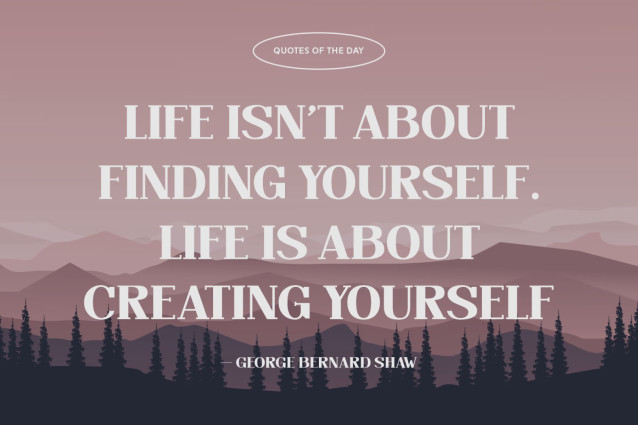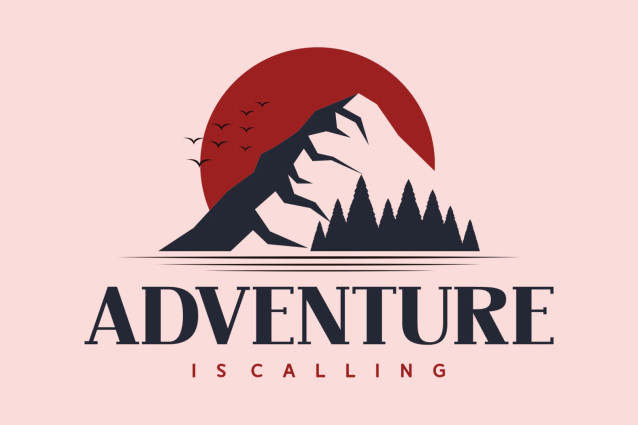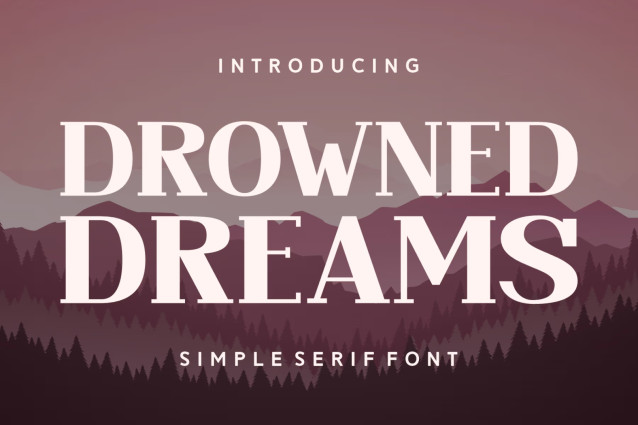
Drowned Dreams Font
Drowned Dreams Font an incredibly refined serif font that exudes an air of elegance and modernity. It serves as the perfect complement to your photography projects or for adding that accentuated touch of authenticity to your apparel. Tailored with an element of grace, it becomes the epitome of sophistication for book covers and brands.
“Drowned Dreams” infuses a clean look into cards, covers, and greets you with warm, charming aesthetics in greeting cards.